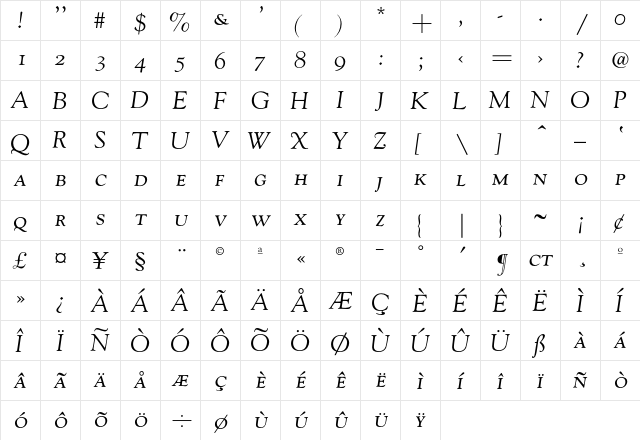
GoudyOldstyleH-SC-Italic Regular
Design Context for GoudyOldstyleH-SC-Italic Typeface
GoudyOldstyleH-SC-Italic carries the refined structure of traditional serif typography, with bracketed terminals and considered proportions that communicate credibility and craft. The slanted form adds forward momentum and visual energy.